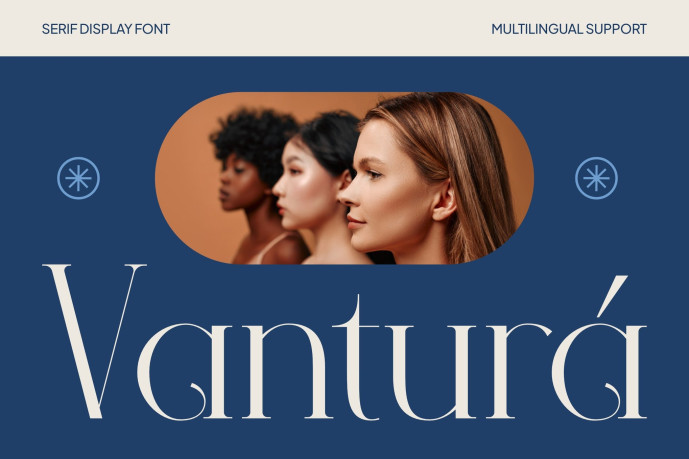
Vantura Font
Vantura Font is a refined high-contrast serif designed for beauty branding, editorial layouts, and sophisticated visual storytelling, featuring delicate curves, sharp terminals, and graceful proportions that create a polished and expressive presence.
Its elegant personality feels modern, feminine, and confident, making it a strong choice for skincare brands, fashion campaigns, magazine covers, cosmetic packaging, and social media promotions. The slim strokes and stylish serif details help every word feel intentional, while the balanced structure keeps it highly readable across both print and digital design. With multilingual support for 67 languages, Vantura helps brands communicate beautifully across global markets while maintaining a consistent and elevated visual identity.
When branding needs beauty, clarity, and strong visual appeal, Vantura delivers a memorable voice. It works beautifully for logos, editorial headlines, Instagram campaigns, website banners, product packaging, and modern poster design. Its elegant contrast and refined proportions create a confident impression that helps designers build trust, sophistication, and emotional connection. Whether you’re shaping a skincare launch, salon identity, or fashion editorial, Vantura brings the right balance of softness and authority.